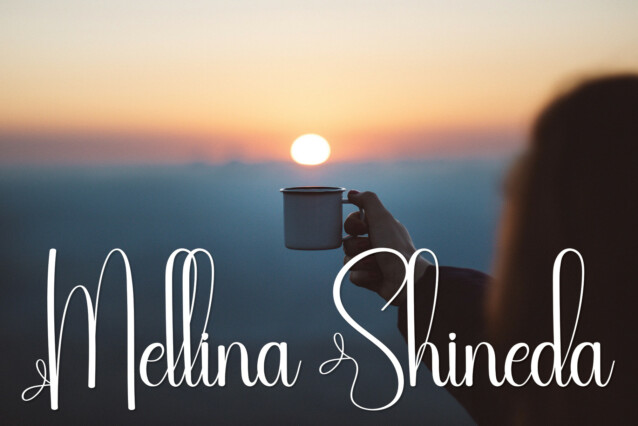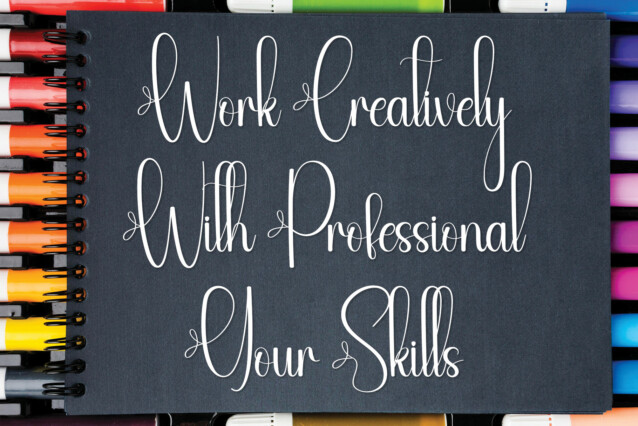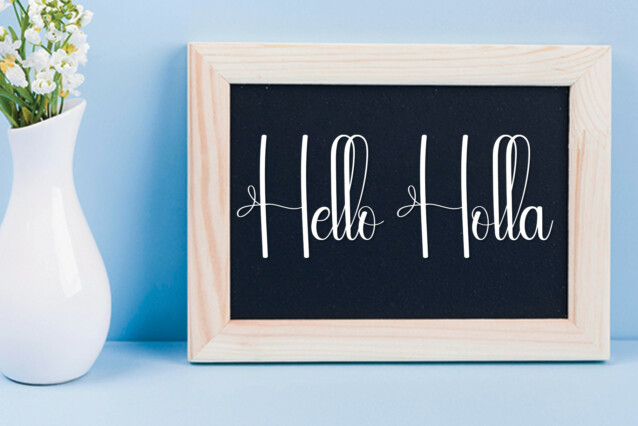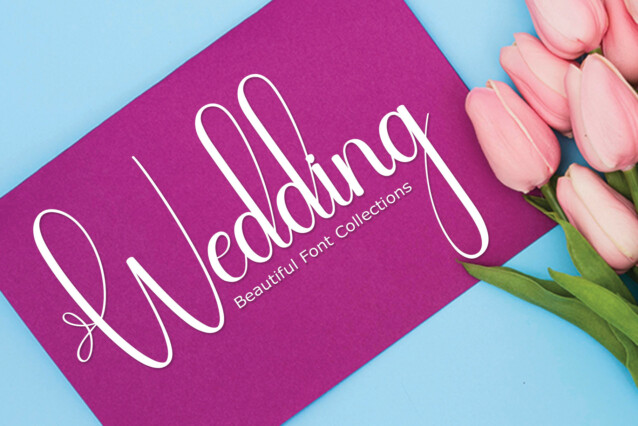
Vanilla Script Typeface
Vanilla Script Typeface is a magical script font carefully created with a touch of elegance. Whether you’re looking for fonts for Instagram or calligraphy scripts for DIY projects, this font will turn any creative idea into a true piece of art!